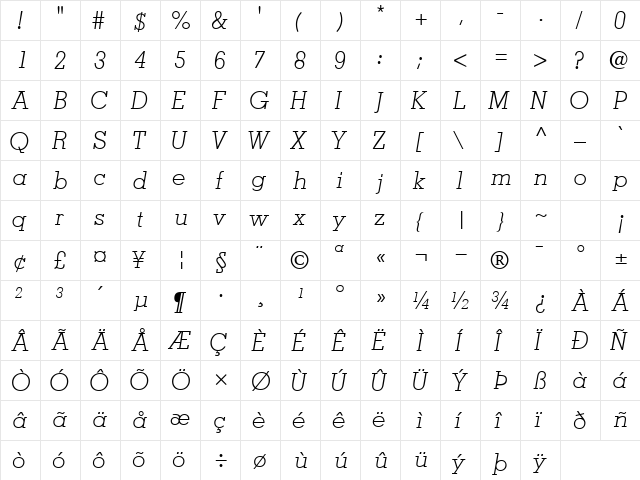
JaakLightSSK Italic
Design Context for JaakLightSSK Typeface
JaakLightSSK offers clean, dependable letterforms without strong stylistic allegiance, making it a practical choice for designers who need flexibility. The dynamic lean of this cut emphasises speed and emphasis in any layout. Its slender proportions lend an understated elegance to any composition.